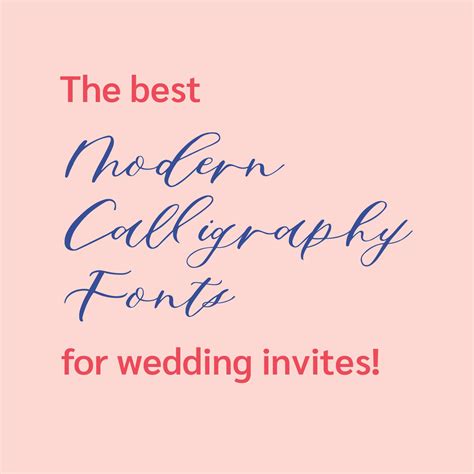
In the digital age, where screens dominate our visual landscape, the art of handwriting often takes a backseat. However, there is a resurgence of interest in the elegance and personal touch that handwritten notes and letters bring. One of the key elements that make handwriting so appealing is the choice of font, particularly the Modern Cursive Font. This style not only adds a touch of sophistication but also makes the text more readable and aesthetically pleasing. Let's delve into the world of Modern Cursive Font, exploring its history, characteristics, and practical applications.
History of Cursive Writing
The origins of cursive writing can be traced back to ancient Roman times, where scribes developed a faster and more efficient way to write. The term "cursive" comes from the Latin word "currere," which means "to run." Over the centuries, cursive writing evolved, adapting to different languages and cultures. In the modern era, cursive writing has seen a decline in educational curricula, but its aesthetic appeal remains unmatched.
Characteristics of Modern Cursive Font
A Modern Cursive Font is characterized by its fluid, connected letters that flow seamlessly from one to the next. Unlike traditional cursive, which can sometimes be difficult to read, modern cursive fonts are designed to be both elegant and legible. Key characteristics include:
- Flowing Lines: The letters are connected in a smooth, continuous line, giving the text a dynamic and graceful appearance.
- Legibility: Despite its decorative nature, a good Modern Cursive Font ensures that the text remains easy to read.
- Versatility: These fonts can be used in a variety of contexts, from formal invitations to casual notes.
- Personal Touch: Handwritten text in a Modern Cursive Font adds a personal and intimate feel to any message.
Popular Modern Cursive Fonts
There are numerous Modern Cursive Fonts available, each with its unique style and charm. Some of the most popular ones include:
| Font Name | Characteristics |
|---|---|
| Pacifico | Known for its playful and casual style, Pacifico is a great choice for informal notes and invitations. |
| Great Vibes | This font has a more formal and elegant appearance, making it ideal for wedding invitations and formal correspondence. |
| Allura | Allura offers a delicate and feminine touch, perfect for personal letters and greeting cards. |
| Dancing Script | With its dynamic and energetic style, Dancing Script is suitable for creative projects and artistic designs. |
📝 Note: When choosing a Modern Cursive Font, consider the context in which it will be used. Different fonts have different moods and can convey various emotions, so select one that aligns with your message.
Applications of Modern Cursive Font
The versatility of Modern Cursive Font makes it suitable for a wide range of applications. Here are some common uses:
- Invitations: Whether it's a wedding, birthday party, or any other special event, a Modern Cursive Font can add a touch of elegance to your invitations.
- Greeting Cards: Personalize your greeting cards with a handwritten look that conveys warmth and sincerity.
- Journaling: Use a Modern Cursive Font to make your journal entries more visually appealing and enjoyable to read.
- Art and Design: Incorporate cursive fonts into your artistic projects to create a unique and stylish aesthetic.
- Branding: Some businesses use Modern Cursive Font in their logos and branding materials to convey a sense of sophistication and personal touch.
How to Use Modern Cursive Font in Digital Projects
Incorporating a Modern Cursive Font into your digital projects is easier than ever with the availability of various design tools. Here are some steps to get you started:
- Choose a Design Tool: Popular options include Adobe Illustrator, Canva, and Photoshop. These tools offer a wide range of fonts and customization options.
- Select a Font: Browse through the available Modern Cursive Fonts and choose one that fits your project's style and tone.
- Customize the Text: Adjust the size, color, and spacing of the text to ensure it looks polished and professional.
- Export Your Design: Once you're satisfied with your design, export it in the desired format (e.g., PNG, JPEG, PDF) for use in your project.
💡 Note: Always ensure that you have the necessary permissions to use a particular font, especially if it is for commercial purposes. Some fonts may require a license.
Tips for Mastering Modern Cursive Font
If you're looking to master the art of writing in a Modern Cursive Font, here are some tips to help you improve:
- Practice Regularly: Like any skill, practice is key. Set aside time each day to practice writing in cursive.
- Use Guides: Start with cursive writing guides or worksheets to help you get the hang of the letter formations.
- Focus on Flow: Pay attention to the flow of your writing. Aim for smooth, continuous lines rather than disconnected letters.
- Experiment with Styles: Try different Modern Cursive Fonts to find one that suits your personal style and preferences.